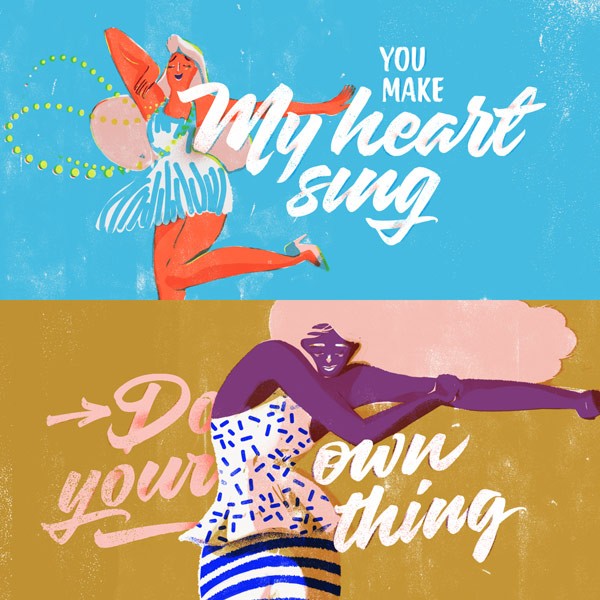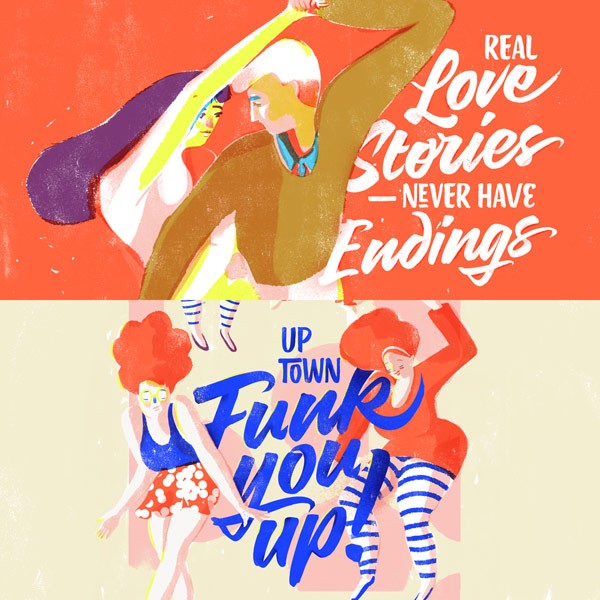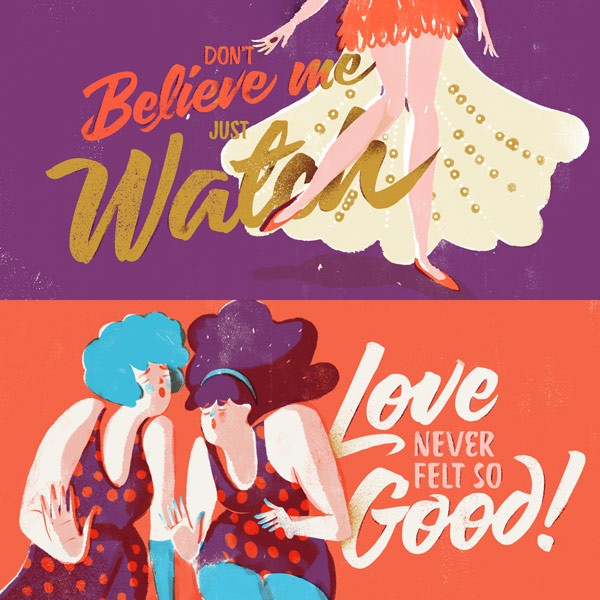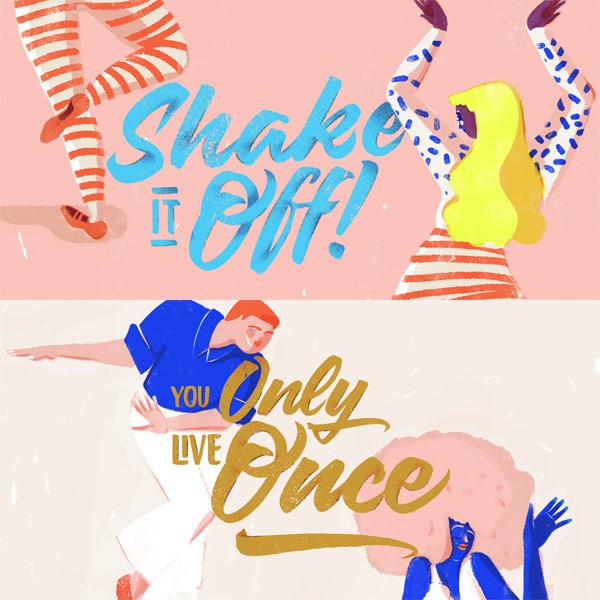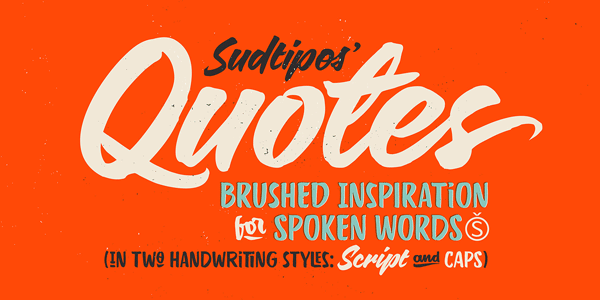
Quotes, a hand painted brush typeface with script and caps styles from Sudtipos.
Calligrapher Yani Arabena has drawn the Quotes fonts in 2015. Thereafter, Guille Vizzari and Ale Paul have digitized the handmade letters to produce this typeface in two styles (script, caps) for foundry Sudtipos.
Using a pointed brush, Yani Arabena wanted to create a typeface in two handwriting styles, which work best for spontaneous messages and phrases. The Script and Caps versions complement each other perfectly! Both styles share a similar rhythm and hand painted look. The uppercase system offers lots of alternate glyphs, ligatures, and connectors. The script version is also equipped with a variety of alternate signs as well as ligatures.